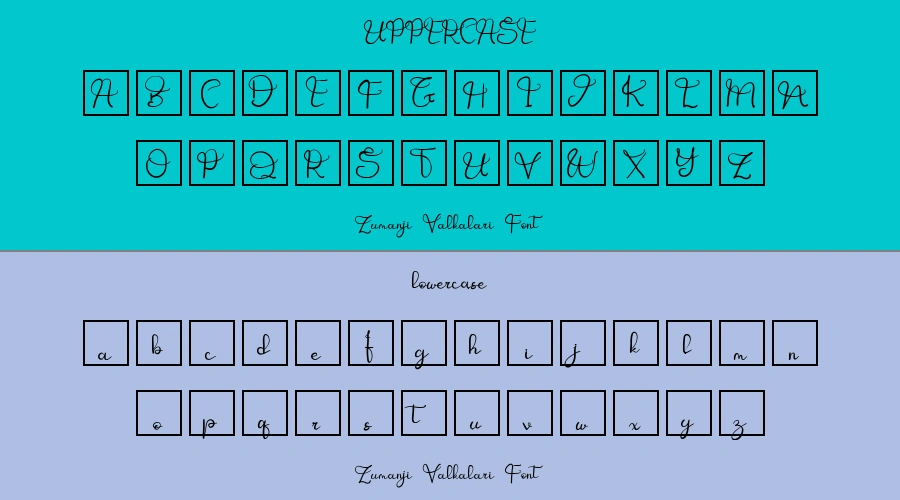
About Zumanji Valkalari Font
Zumanji Valkalari Font represents a sophisticated approach to type design, balancing balanced proportions with sophistication. Perfect for product packaging, this font family showcases impressive clarity and technical sophistication throughout its character set. Designers appreciate its versatility and reliability.
Designers will appreciate nuanced touches including elegant spacing and technical characters, adding sophistication to any project. These features become apparent in footnotes, where detail preservation matters most. The careful treatment of aperture size and emotional resonance ensures optimal performance.